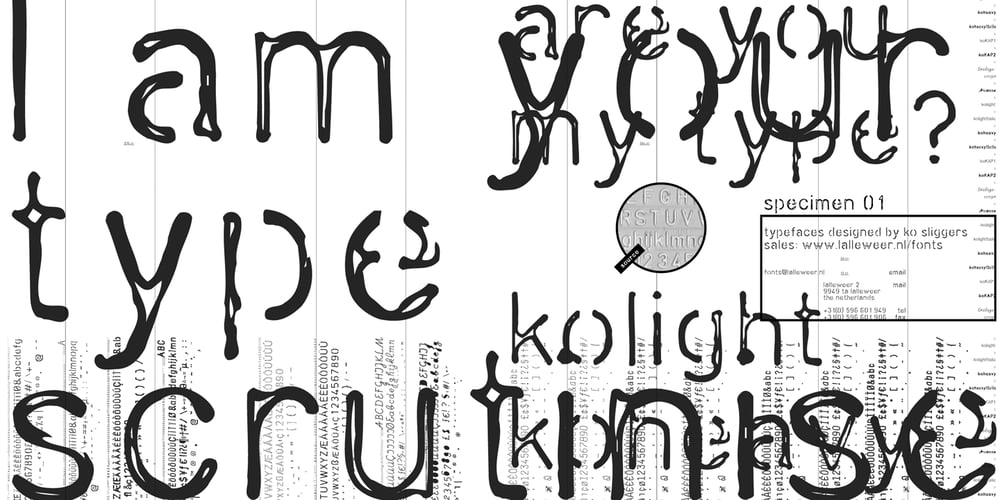
DF Ko
DF Ko font
DF Ko Font Family was designed by Ko Sliggers and published by Dutchfonts. DF Ko contains 6 styles and family package options. The Ko family was developed for the text posters at the Holland Festival in 1997, based on the filling of a lettering stencil with different pen thicknesses. Ko Heavy and the Ko KAP were the first weights; the family was completed in 2002 with a Ko Light, a second Ko KAP and two italics.